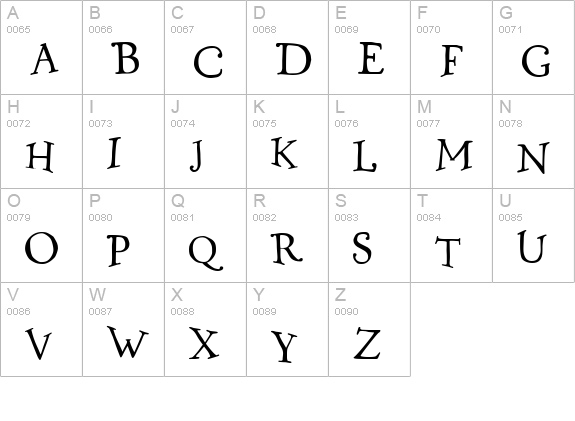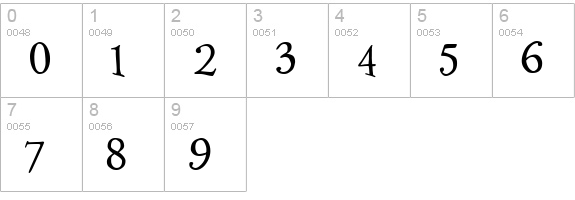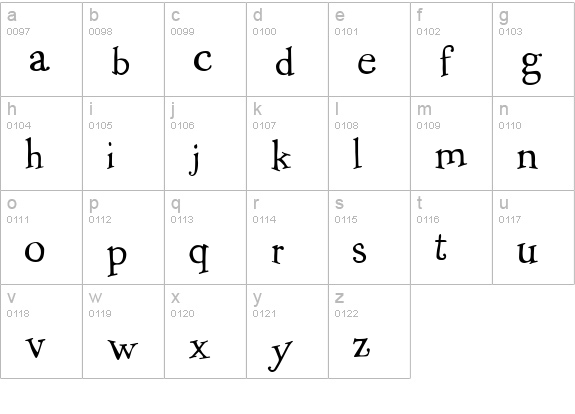
2Peas Flea Market Font Details
2Peas Flea Market font is a charming and whimsical typeface that exudes a sense of nostalgia and playfulness. With its hand-drawn appearance and quirky letterforms, this font is perfect for adding a touch of personality to any project. Whether you're creating invitations, greeting cards, or social media graphics, 2Peas Flea Market font will bring a unique and eye-catching look to your designs. And the best part? This delightful font is available for free download at FontsMarket.com. So go ahead and give your projects a creative and fun twist with 2Peas Flea Market font today!